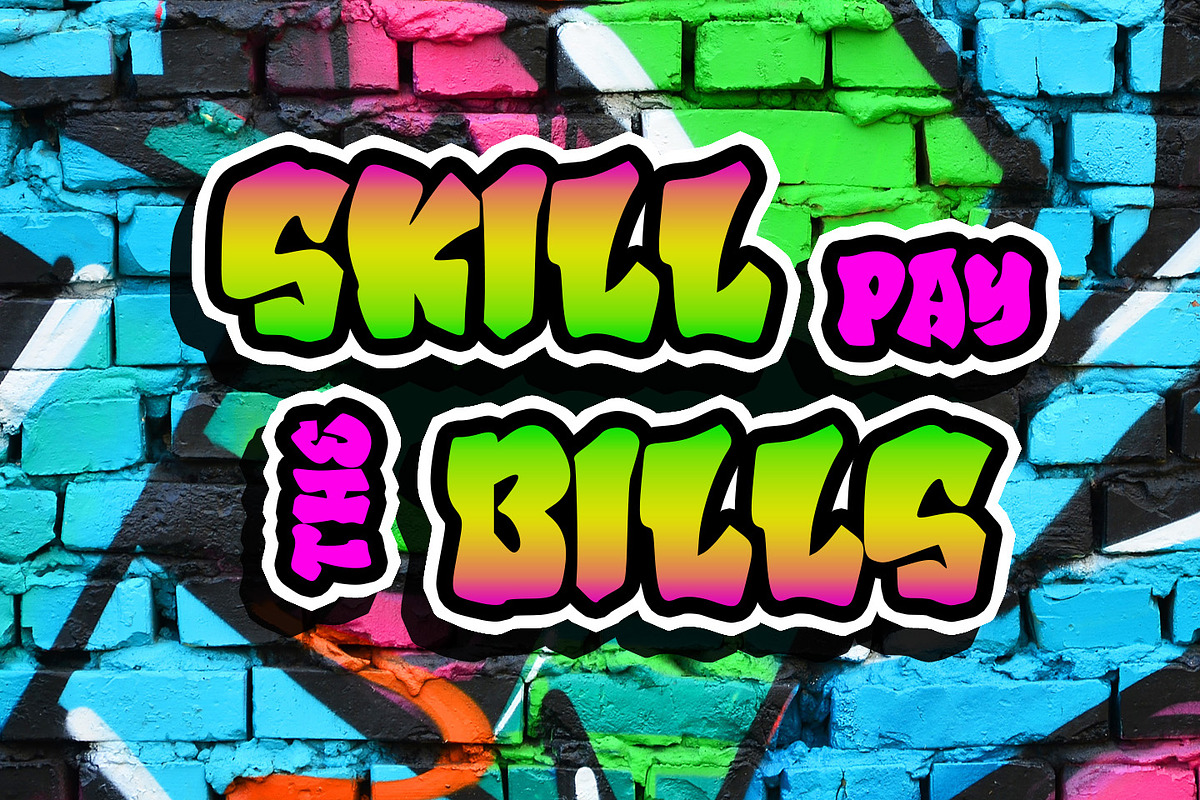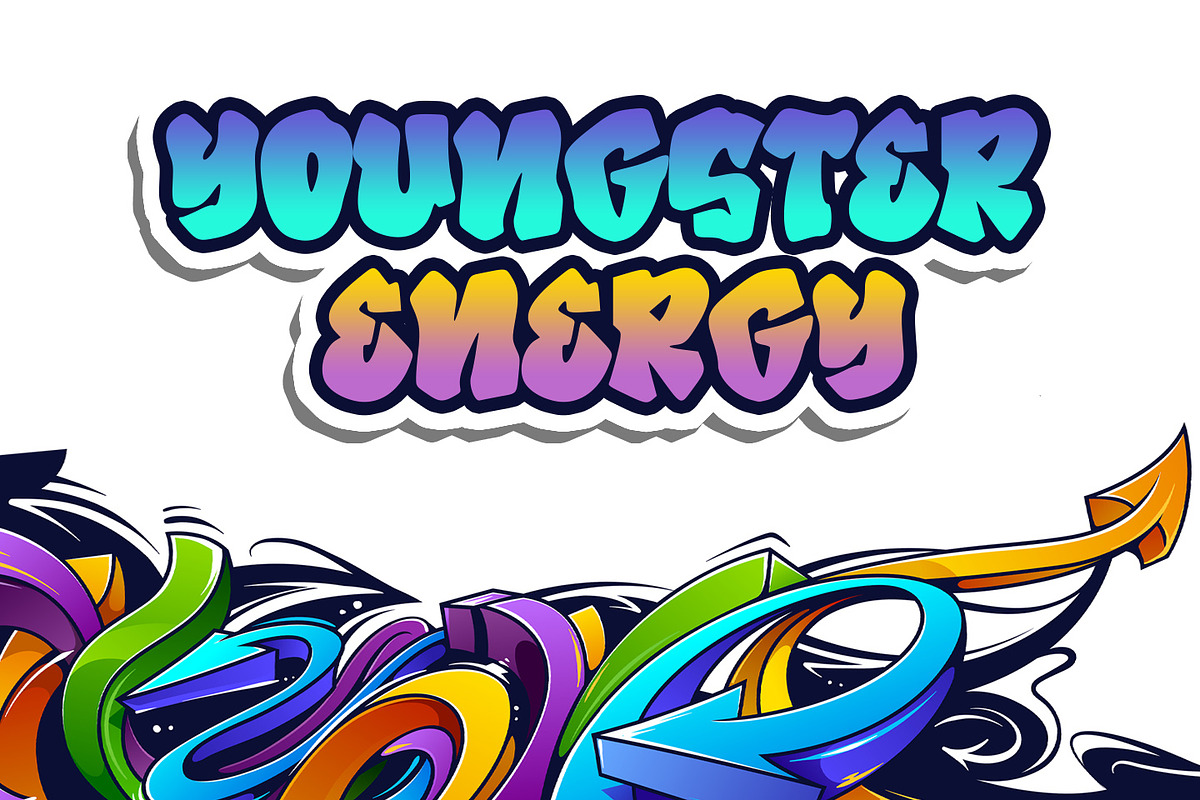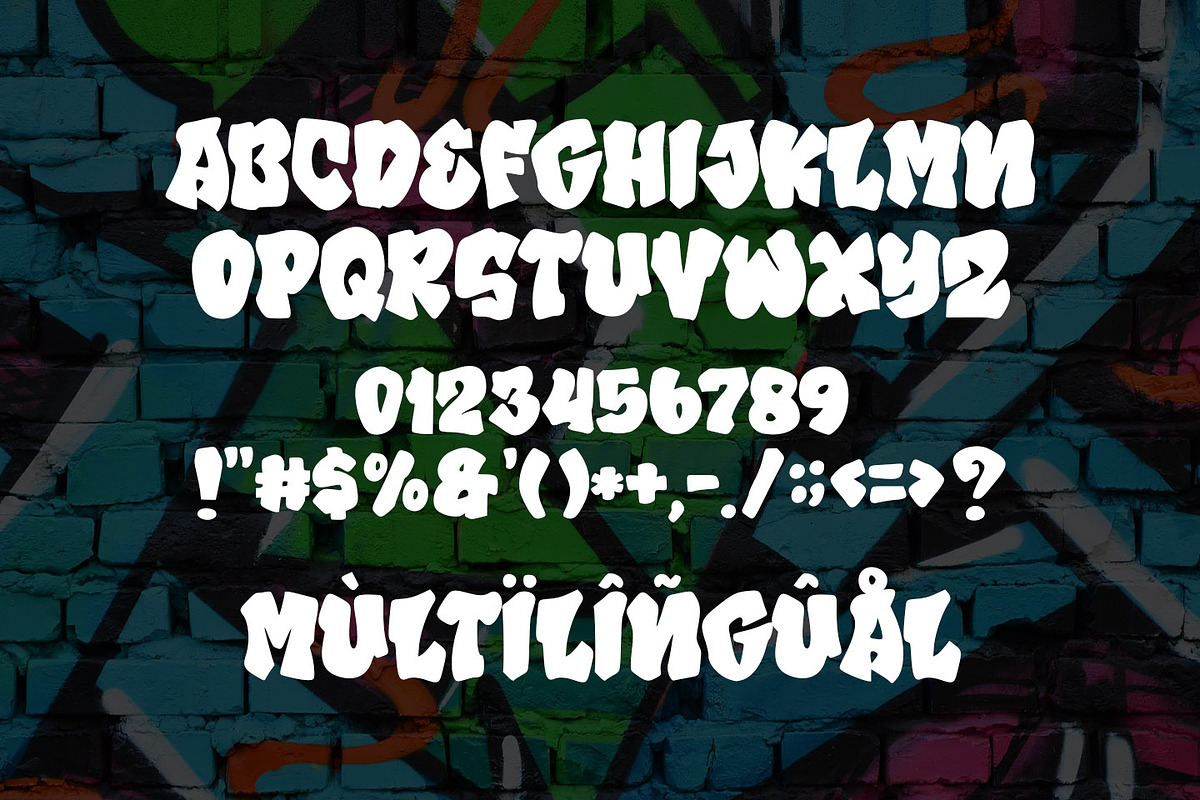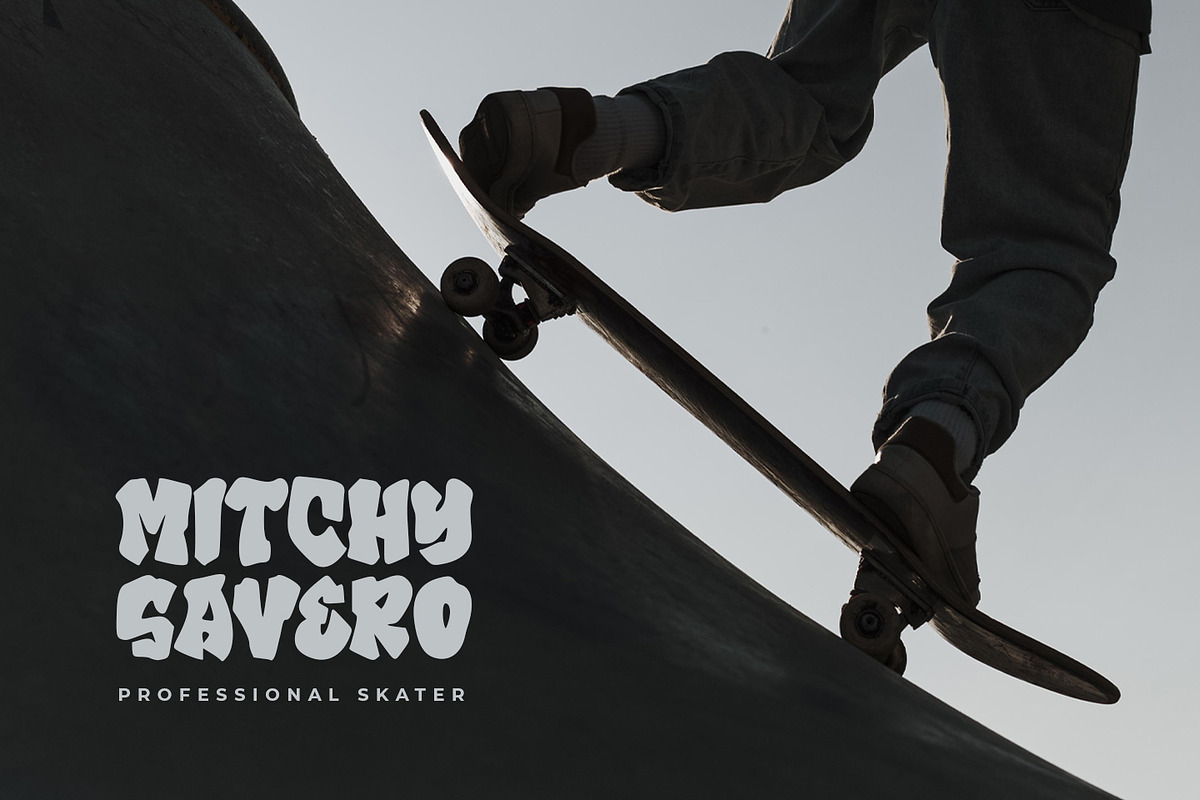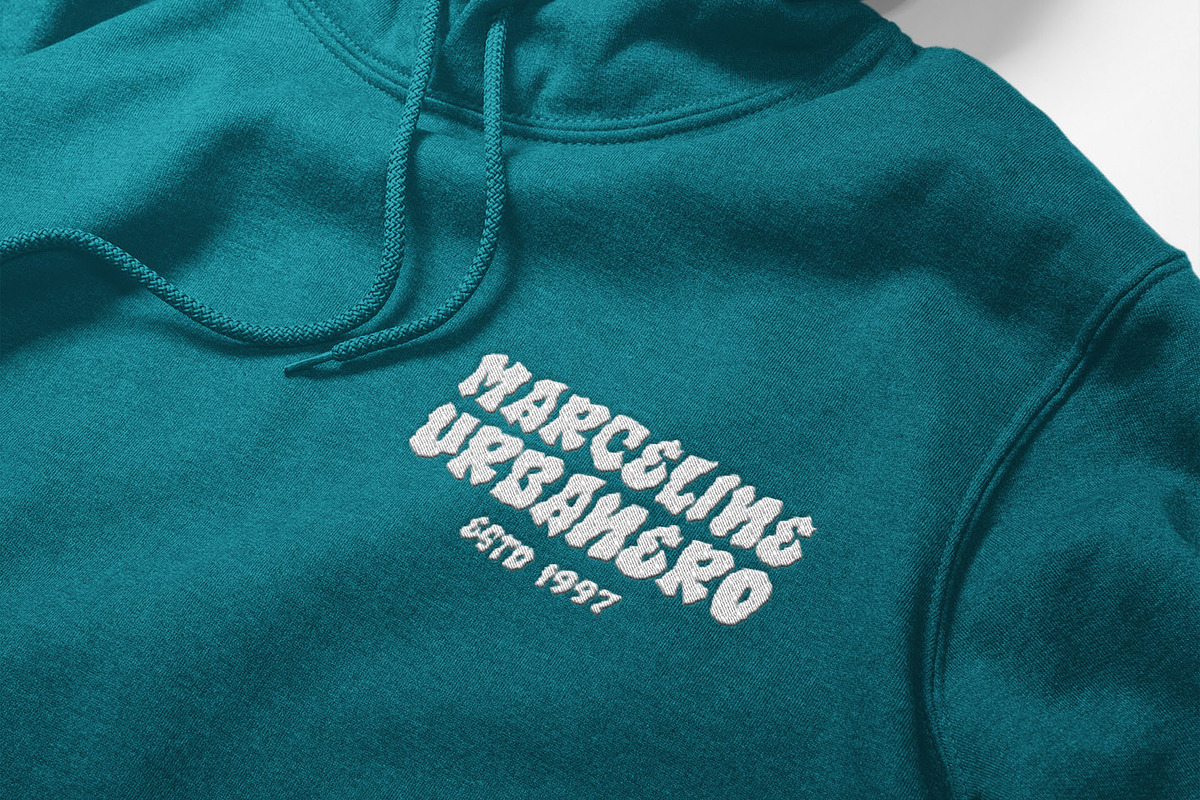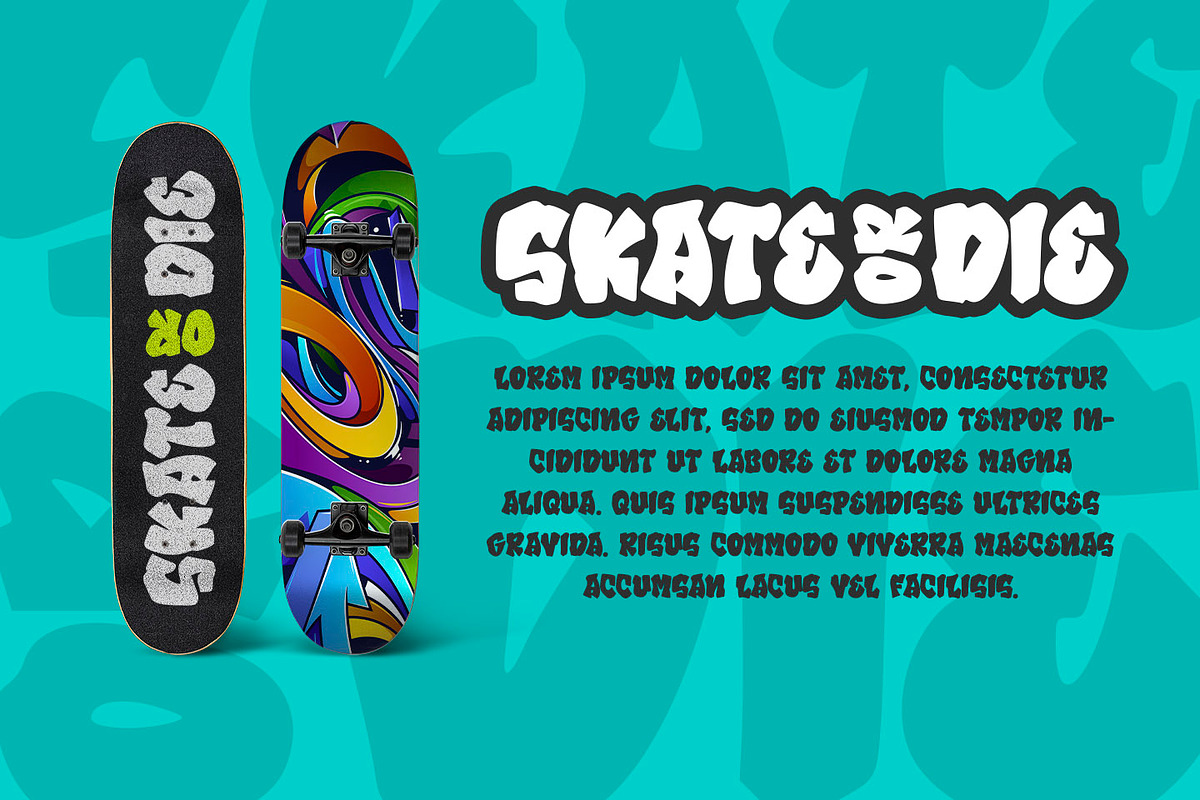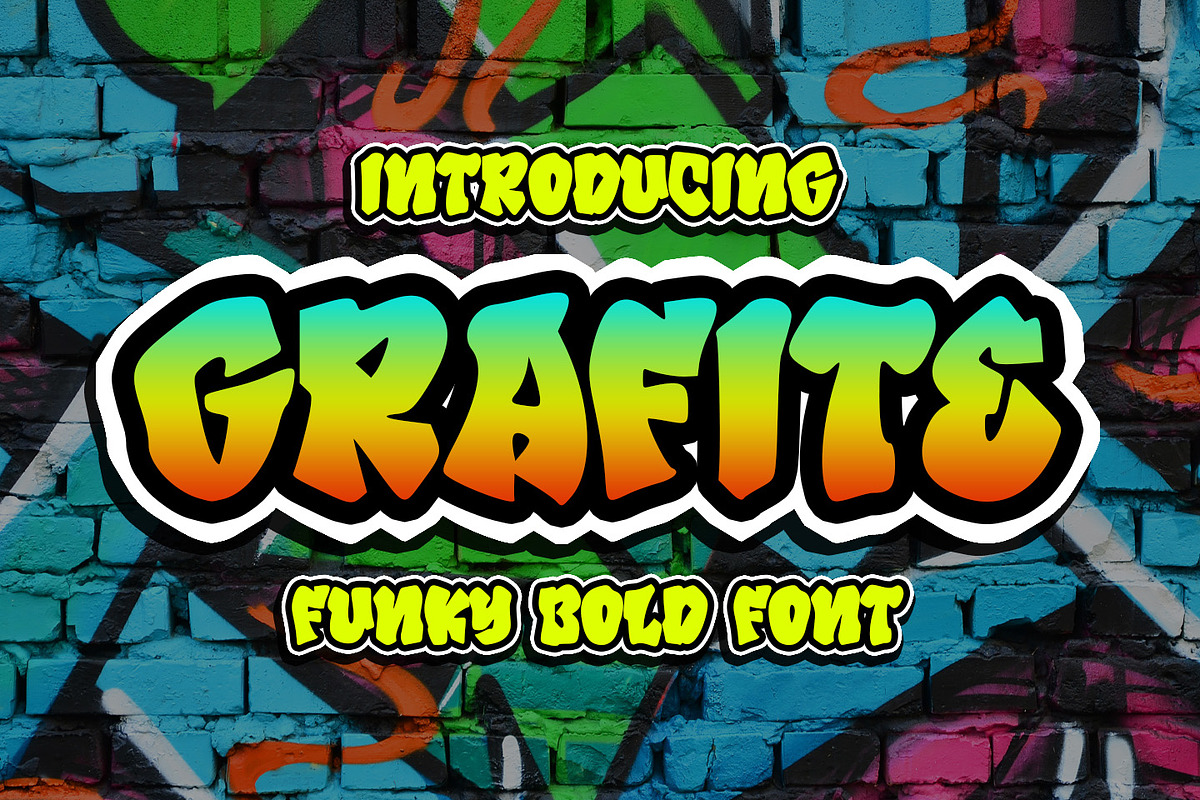
Grafite
introducing
GRAFITE - Funky Bold Font -
it is great for t-shirt design, skateboards, cards, banners, branding, packaging, quotes, logos, social media, and anything your project that needs a cool touch.
Number & Punctuation